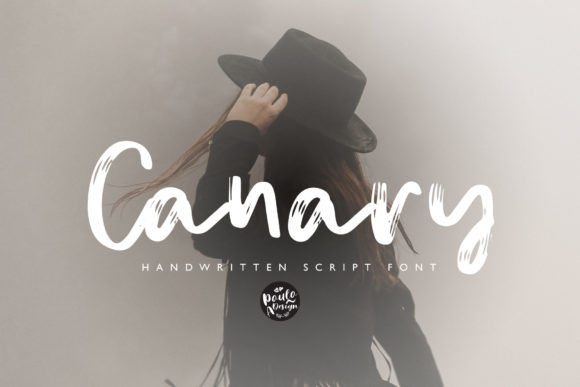
The Canary Font: A Beautiful Handwritten Brush Font for Creative Projects
I still remember the design project that led me to discover the Canary font. I was working on a client’s invitation for a wedding, and I was struggling to find the perfect font that would match the elegant yet playful vibe of the event. The client wanted something that would make a statement, but not look too over-the-top. After hours of browsing through font libraries, I stumbled upon the Canary font, and it was love at first sight! 💕
An Honest Review of Canary Font
What I Love About Canary Font
- ✨ The Canary font is a beautiful handwritten brush font that adds a personal touch to any project.
- ✅ It’s perfect for high-impact headlines, blog posts, invitations, and more.
- 💫 The font has a unique, elegant feel that’s perfect for wedding invitations, baby shower announcements, and other special occasions.
- 🎨 The Canary font comes with a range of OpenType features, including glyphs and stylistic alternates, which give you plenty of creative options.
While the Canary font is amazing, there are a few things to keep in mind:
- ⚠️ The font may not be suitable for body text or long paragraphs, as it’s best used for headlines and titles.
- 🤔 Some users have reported issues with kerning, but this can usually be adjusted in design software.
The Designer Inspiration Behind Canary Font
The Canary font was designed with the intention of creating a beautiful, elegant handwritten font that’s perfect for special occasions. The designer wanted to create a font that would evoke the feeling of a personal, handwritten note, but with a more polished and refined look.
Q: What type of projects is Canary font best suited for?
A: Canary font is perfect for high-impact headlines, blog posts, invitations, and other creative projects where you want to make a statement.
Q: Is Canary font suitable for body text?
A: While Canary font is amazing, it’s best used for headlines and titles. For body text, you may want to choose a more traditional font.